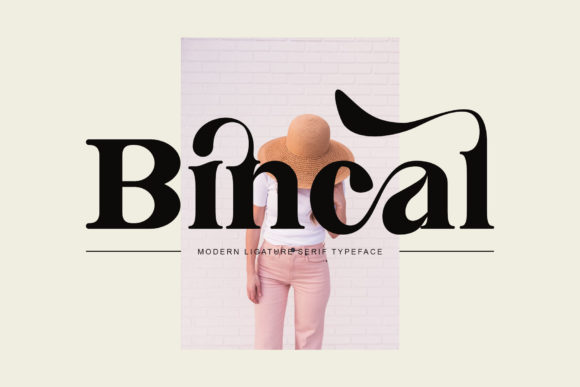
Step into the world of romantic aesthetics with Bincal, a mesmerizing serif font family crafted with passion and precision. Designed to be the perfect companion for your heartfelt expressions, Bincal transforms words into captivating works of art that leave an unforgettable impression. Experience the beauty of classic typography blended seamlessly with a touch of modern flair, making it the ideal choice for love letters, wedding invitations, or any project that deserves an extra dose of charm and sophistication.
Immerse yourself in the realm of elegance with Bincal’s carefully sculpted curves and sweeping terminals, each stroke infused with a timeless allure that speaks to the heart. Feel the warmth and grace of your words as they dance across the page, carried by the refined strokes of this extraordinary font. Let Bincal be your muse as you weave tales of romance and affection, capturing the essence of love in its every form.
Unlock the full potential of Bincal with its PUA-encoded characters, granting you effortless access to a treasure trove of glyphs and swashes. Unleash your creativity and explore the endless possibilities to add a touch of whimsy and playfulness to your designs. Personalize your messages with intricate embellishments that reflect your unique style and personality. Elevate your words to new heights of beauty, making them shine brighter than the stars above.